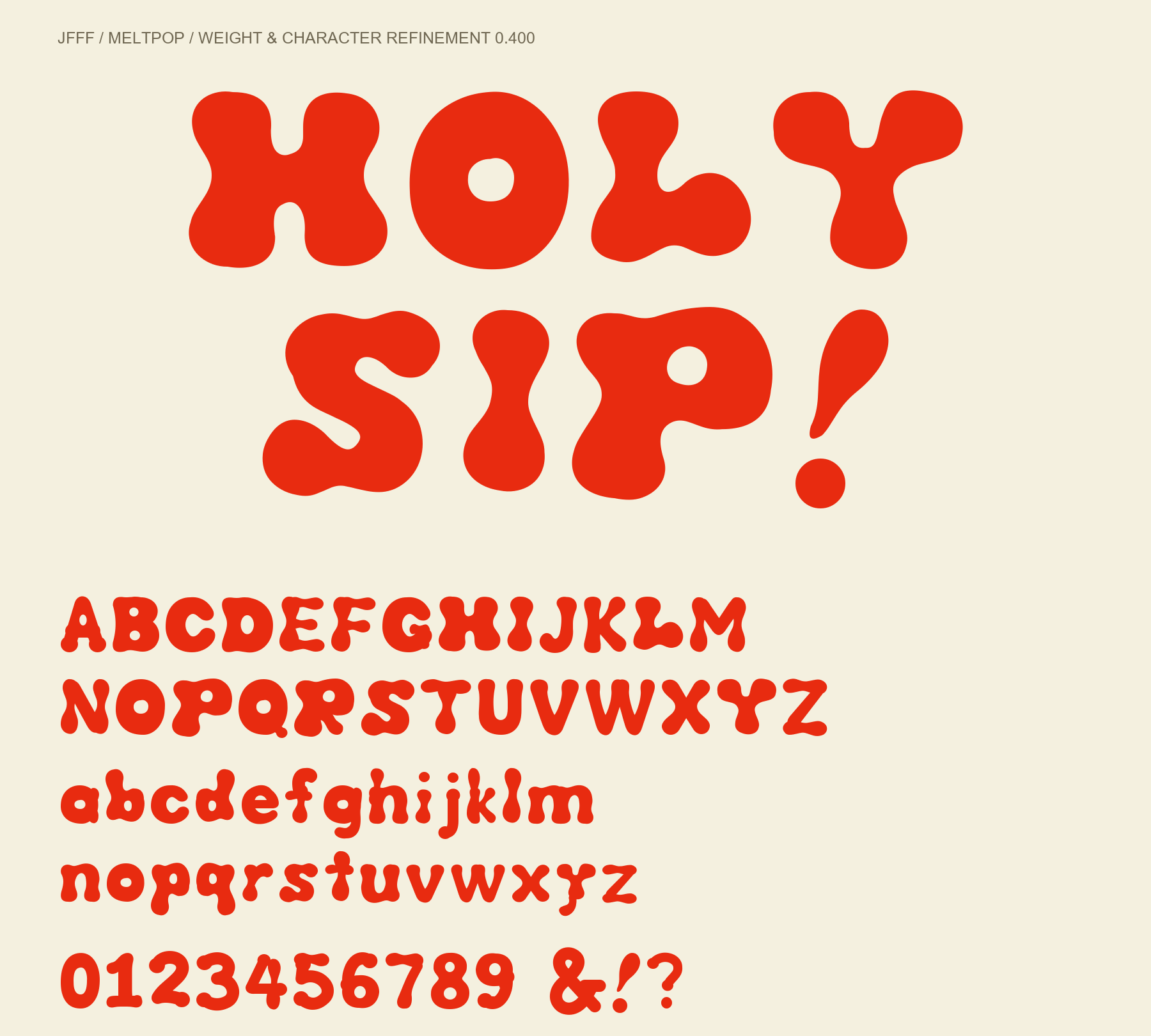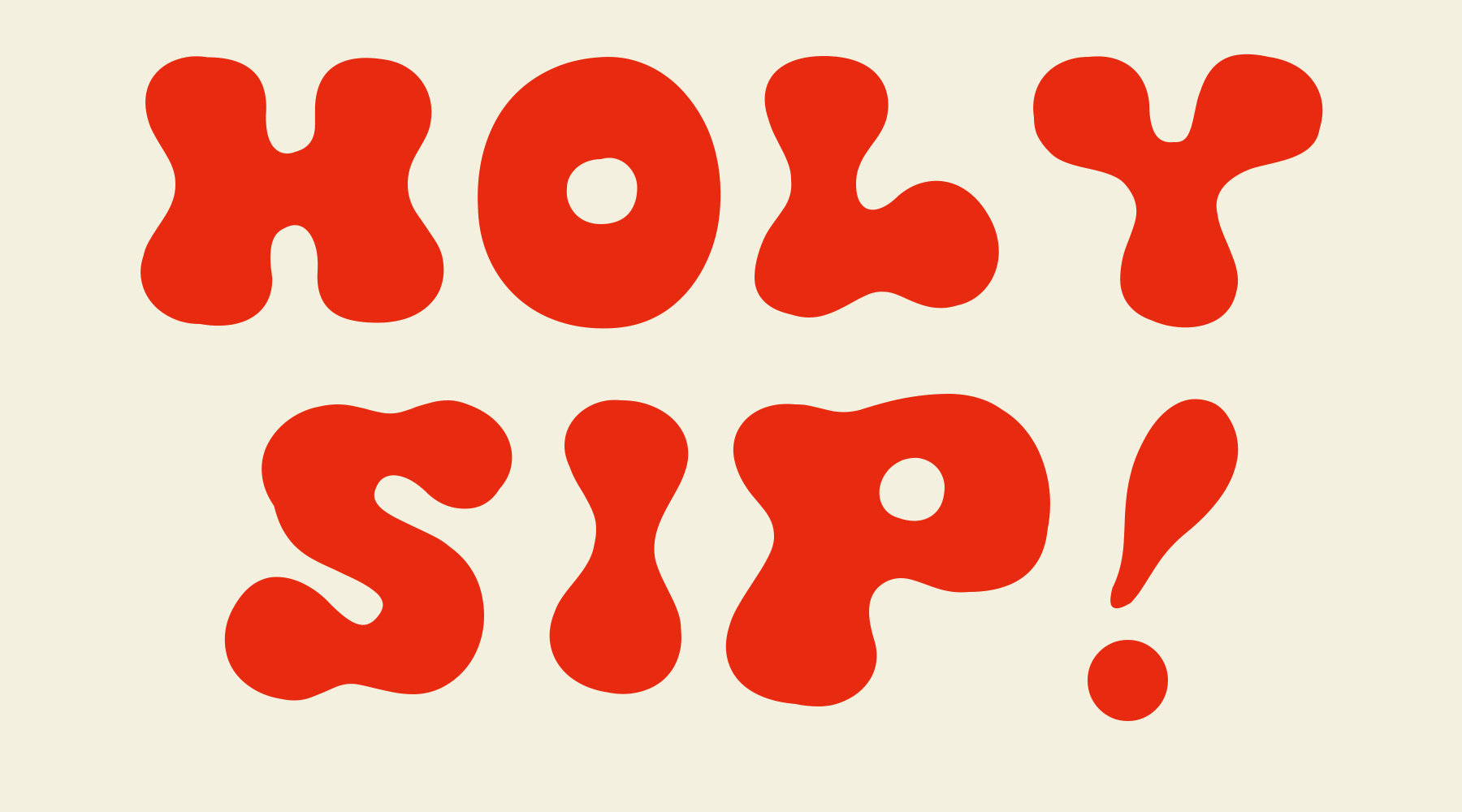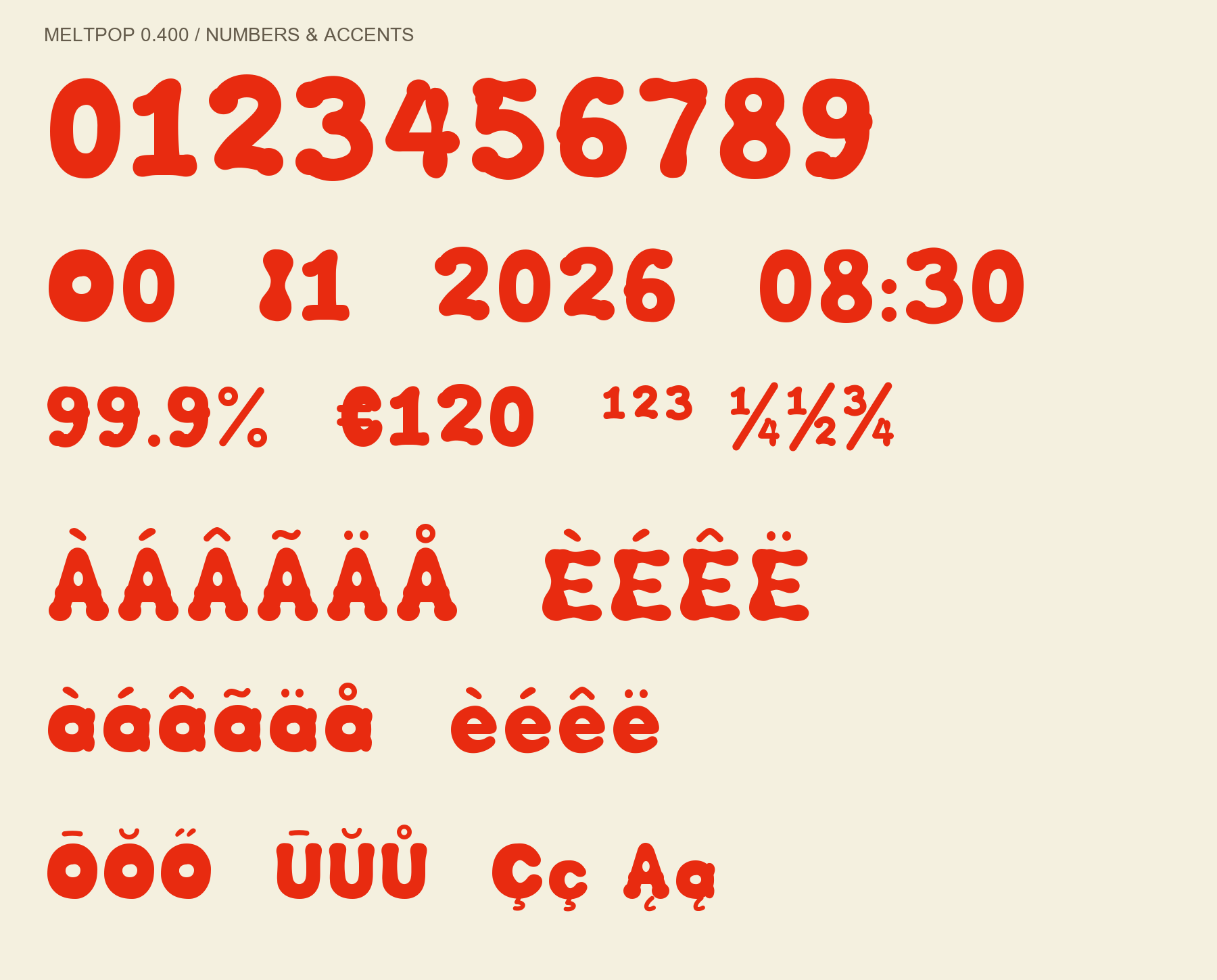
Meltpop uppercase, lowercase and figures
Meltpop is a Latin display face with swollen stroke endings, pinched joins and small counters, carrying the organic silhouettes of H, I, L and Y across both cases and extended Latin. Version 0.400 redraws 0 and 1 to stand apart from O and I and balances figures, superscripts, fractions and accents. 330 characters including spaces, TTF and WOFF2. No Hangul or paper texture. Suited to large titles, posters and packaging; free under SIL OFL 1.1. Rendering and character mapping were checked; full kerning, OS and browser compatibility checks are still pending, and small sizes are not meant for body text.